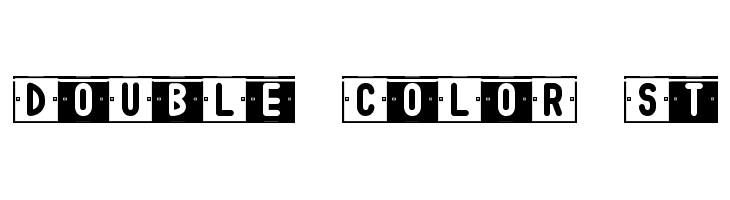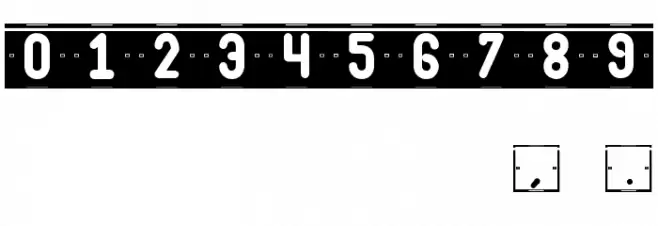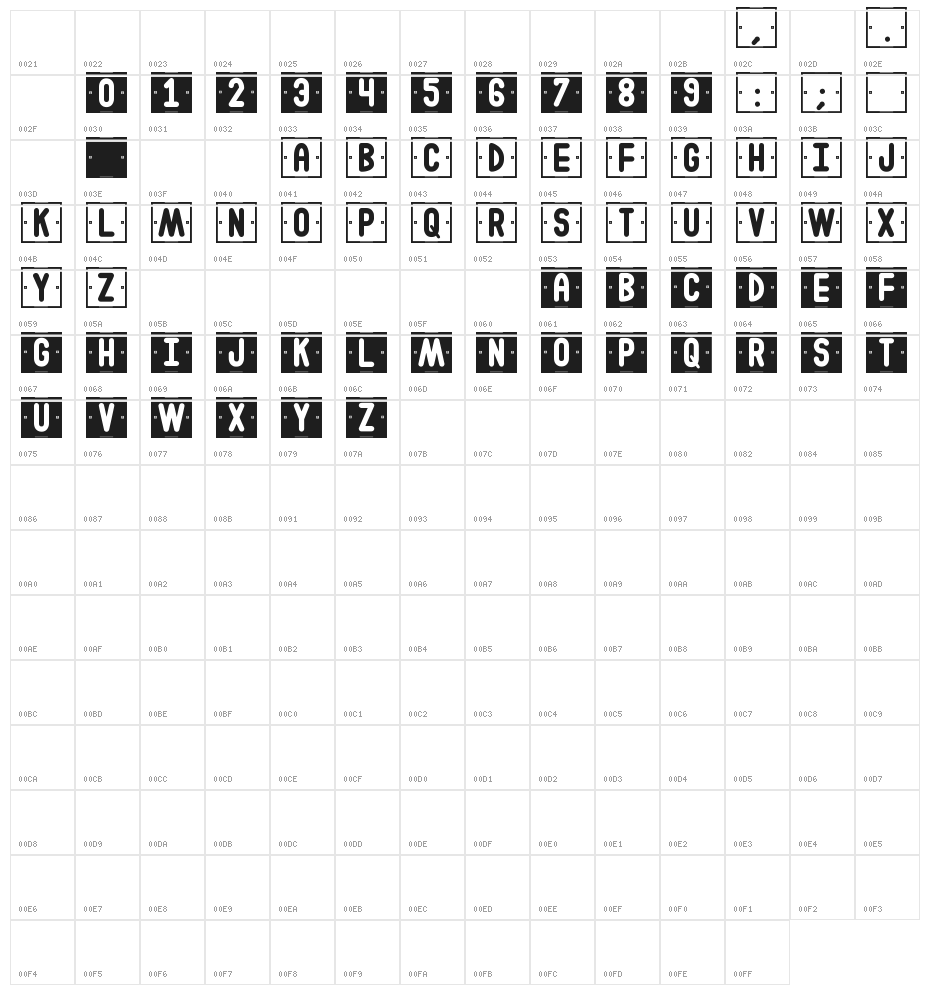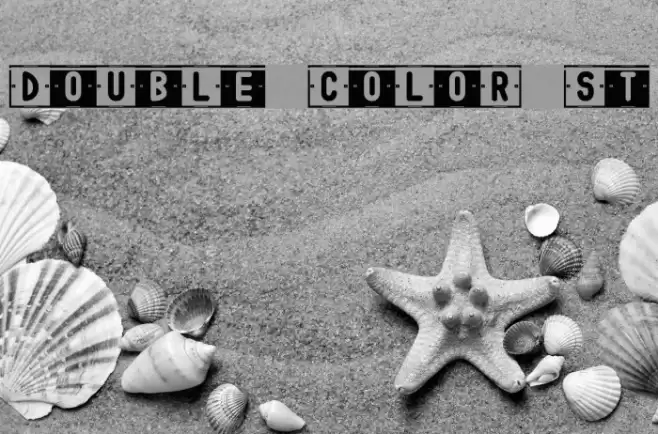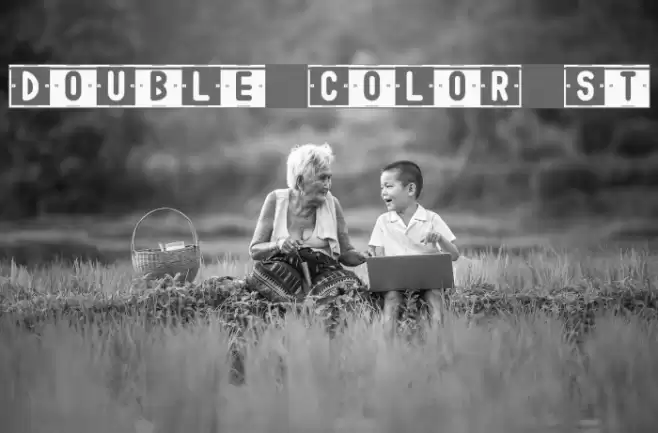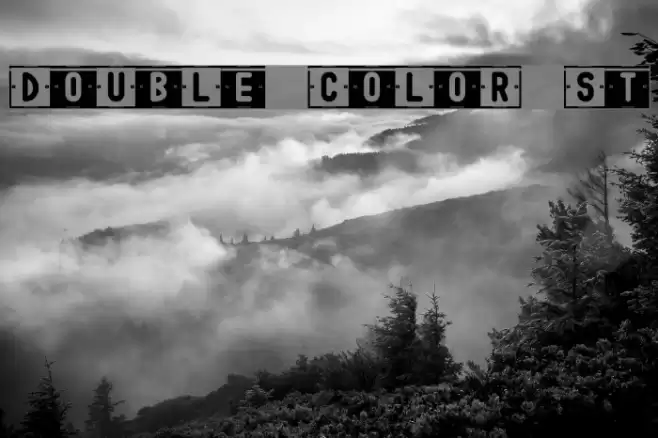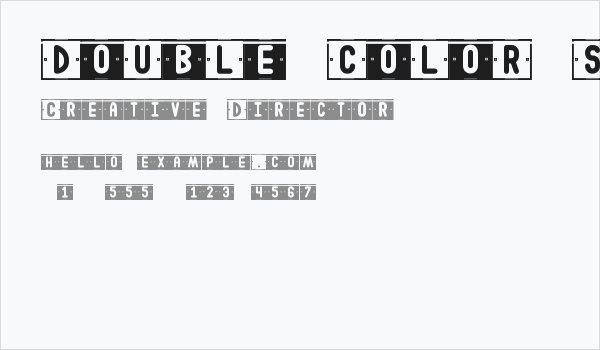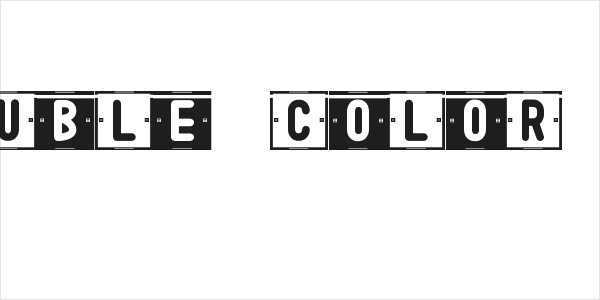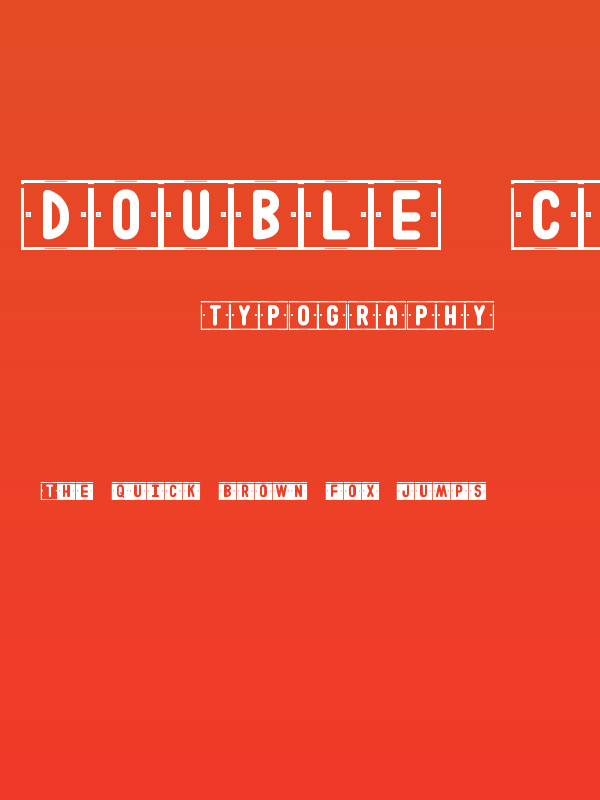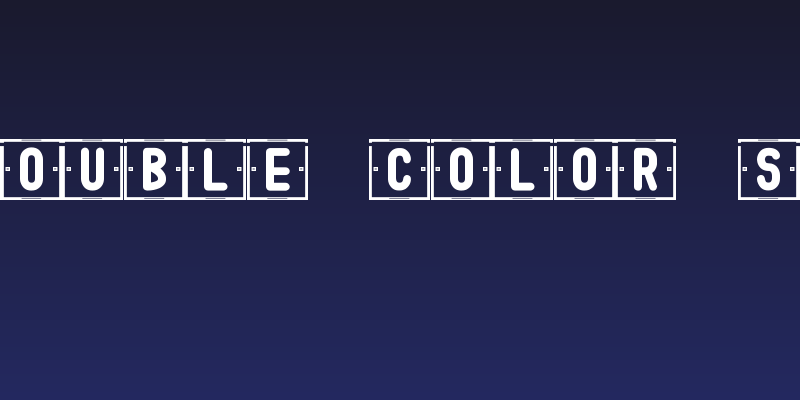
DoUbLe CoLoR St Font
DoUbLe CoLoR St Description
This font features a unique design with a bold, playful style. Each character is enclosed within a rectangular frame, adding a structured and organized appearance. The letters are uppercase and lowercase, with a consistent width and height, creating a uniform look. The numbers and special characters follow the same design principles, ensuring cohesion across all elements. The font's distinctiveness is enhanced by its two-tone color scheme, which adds depth and visual interest. This style is reminiscent of retro digital displays, making it suitable for projects that aim to evoke a sense of nostalgia or a modern twist on classic designs.
| Overall Style | Retro, Modern |
| Proposed Projects | Ideal for retro-themed designs, digital displays, posters, and branding that requires a playful yet structured look. |